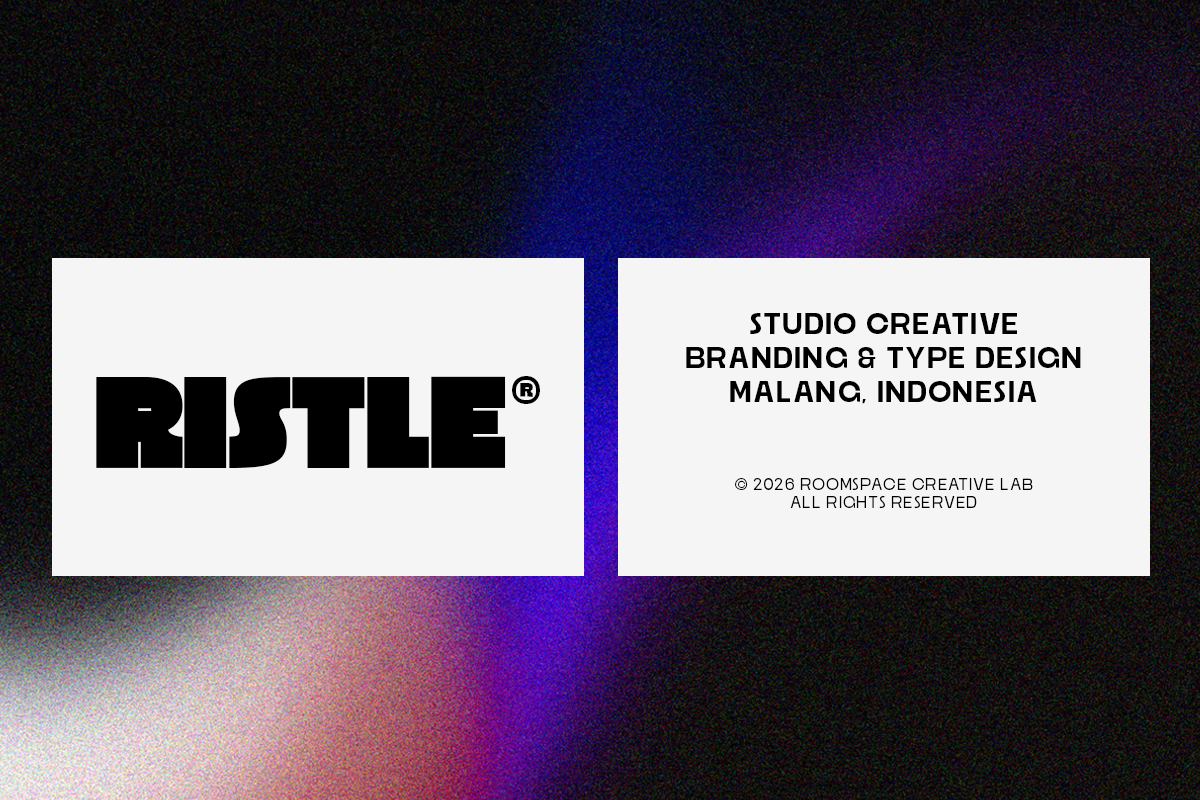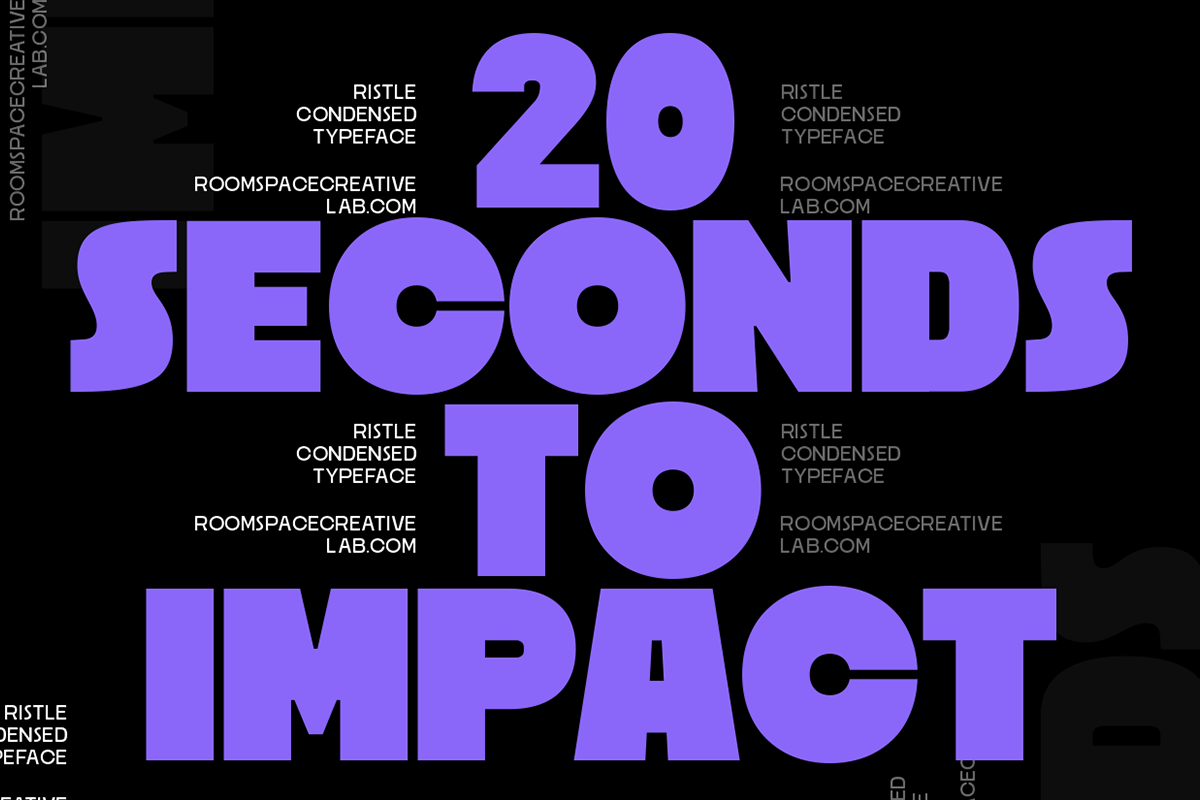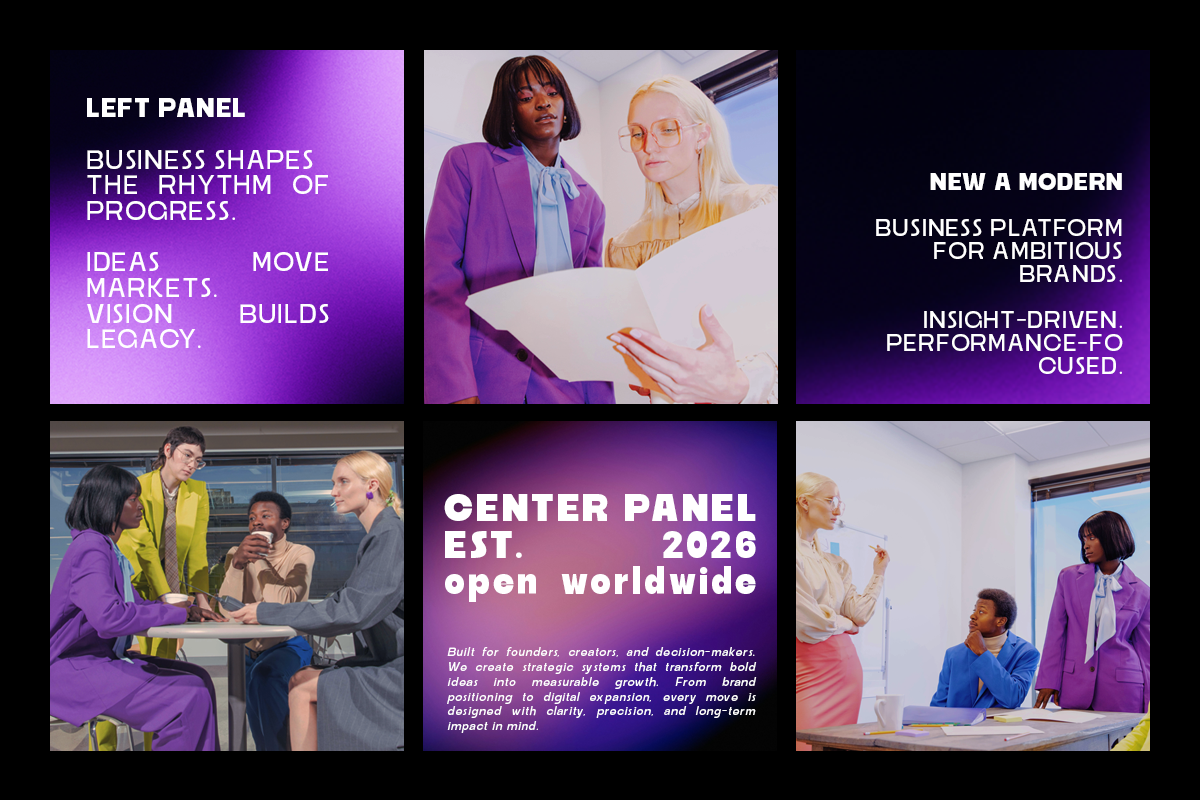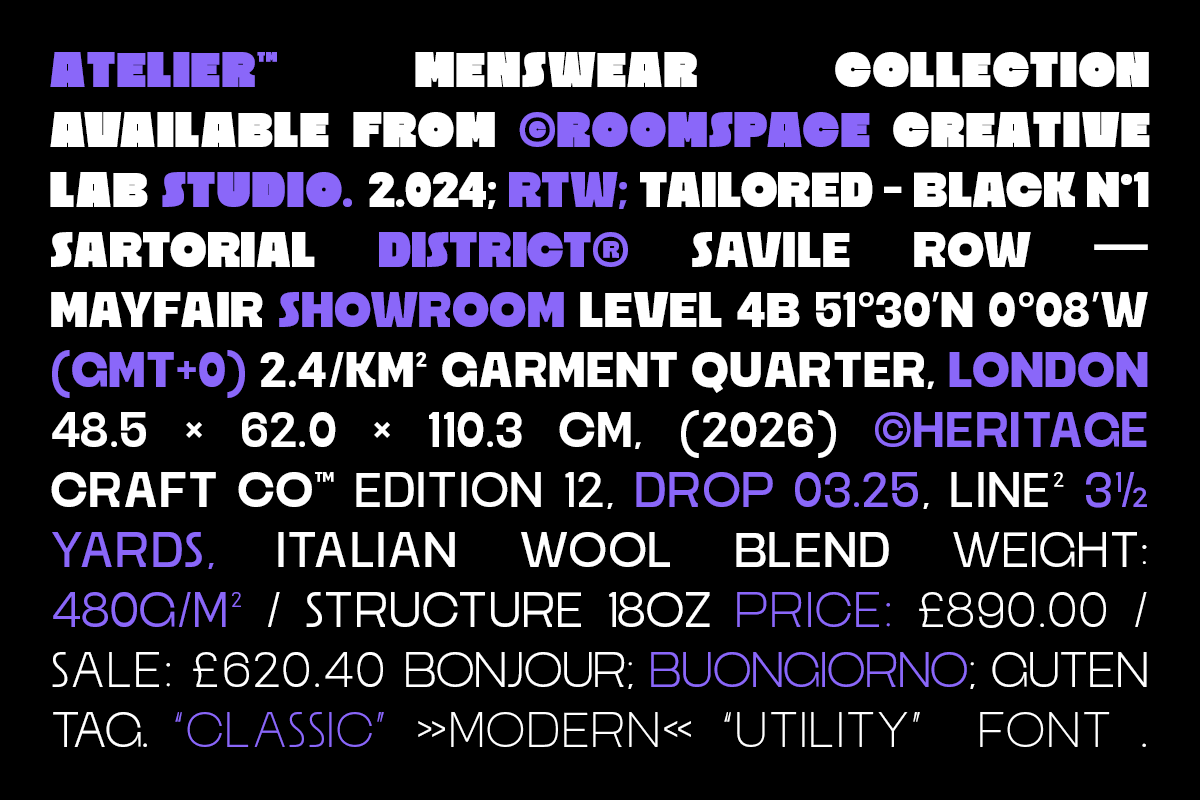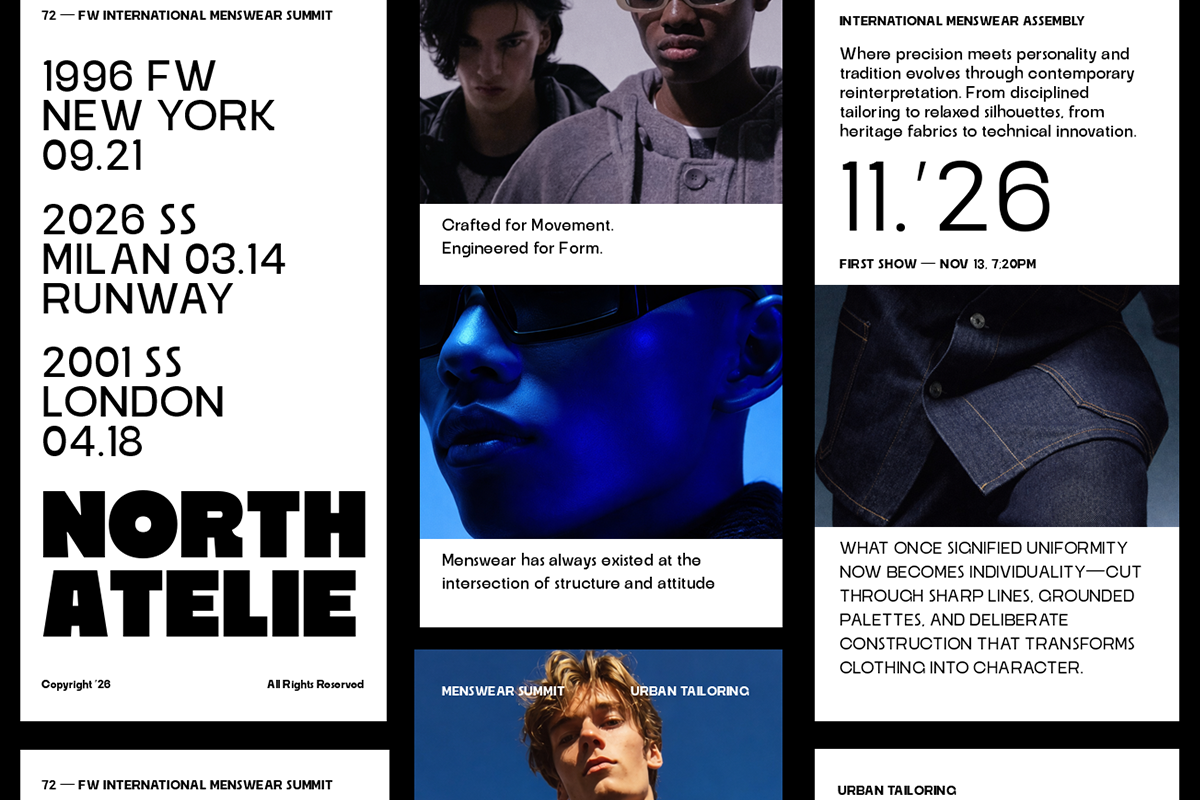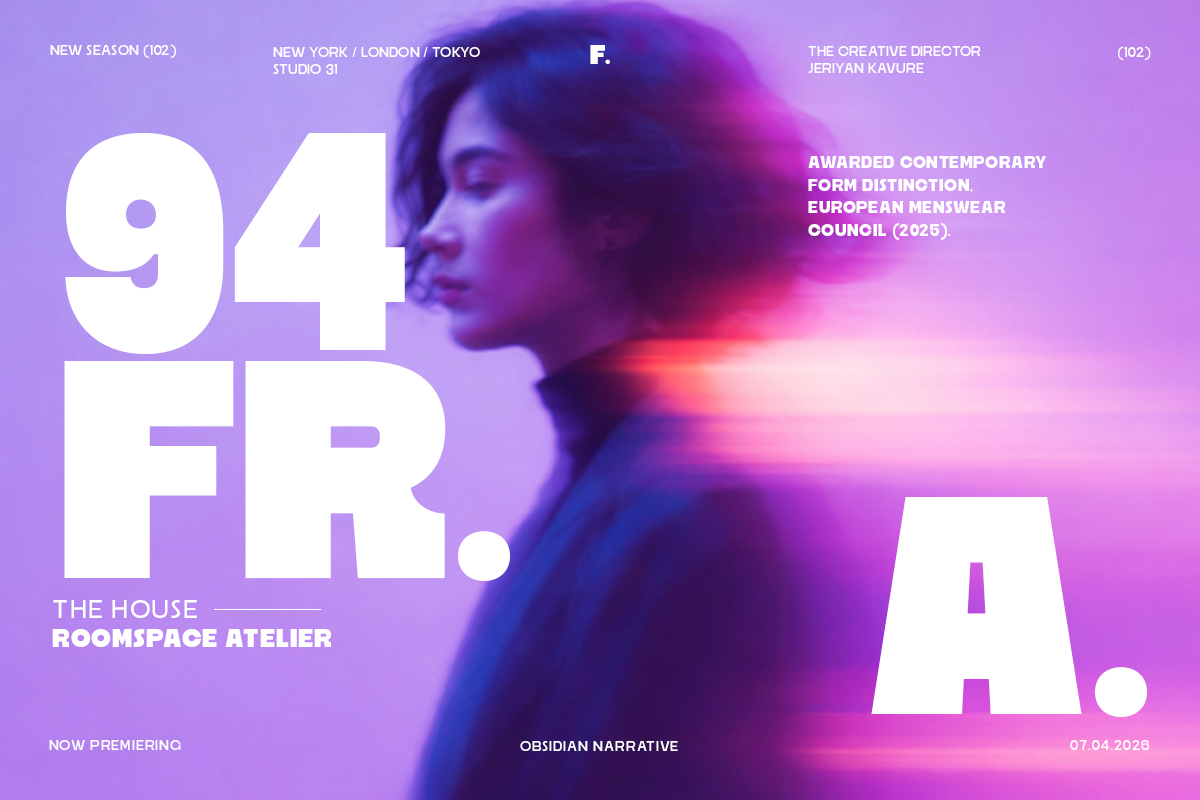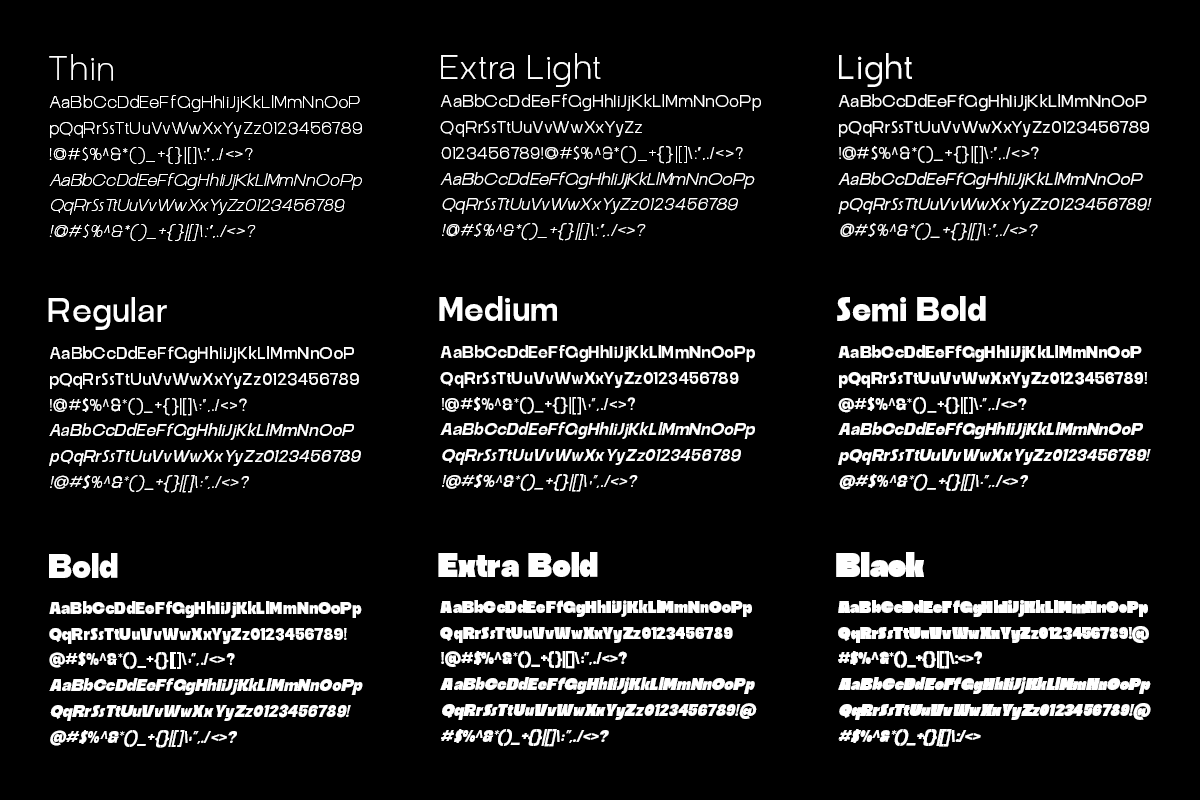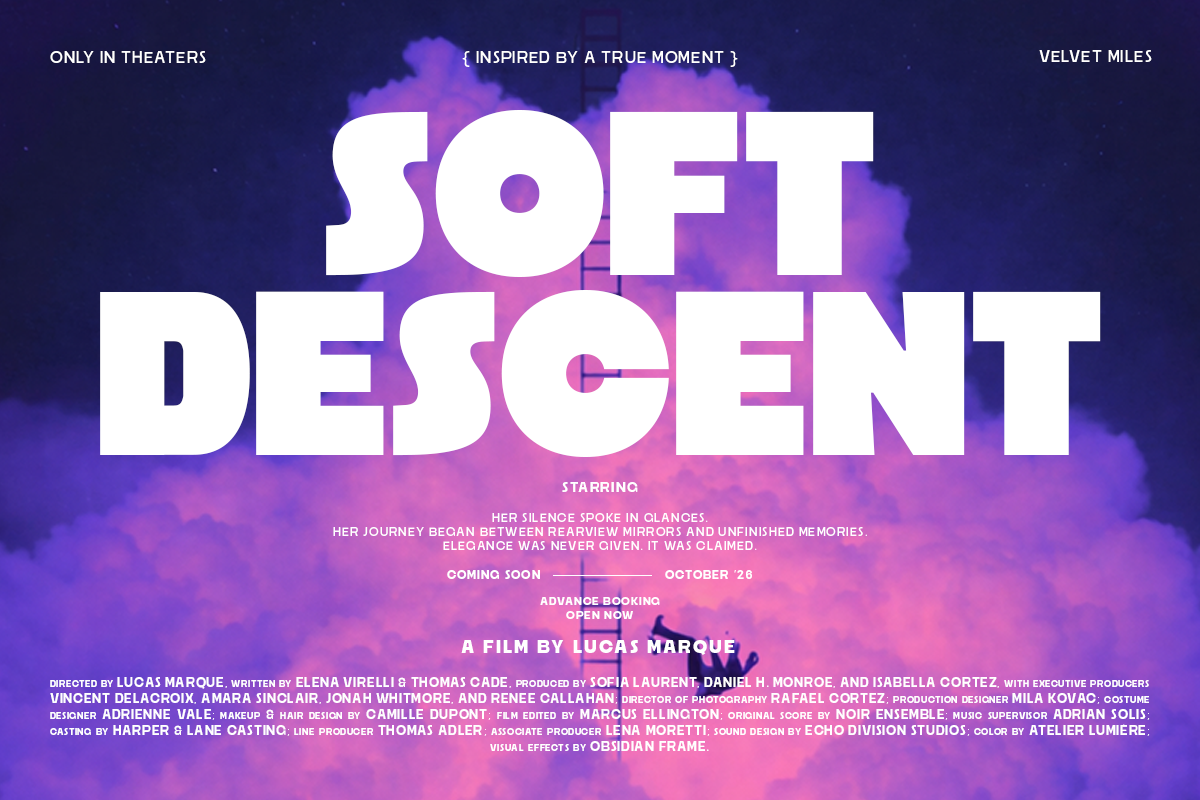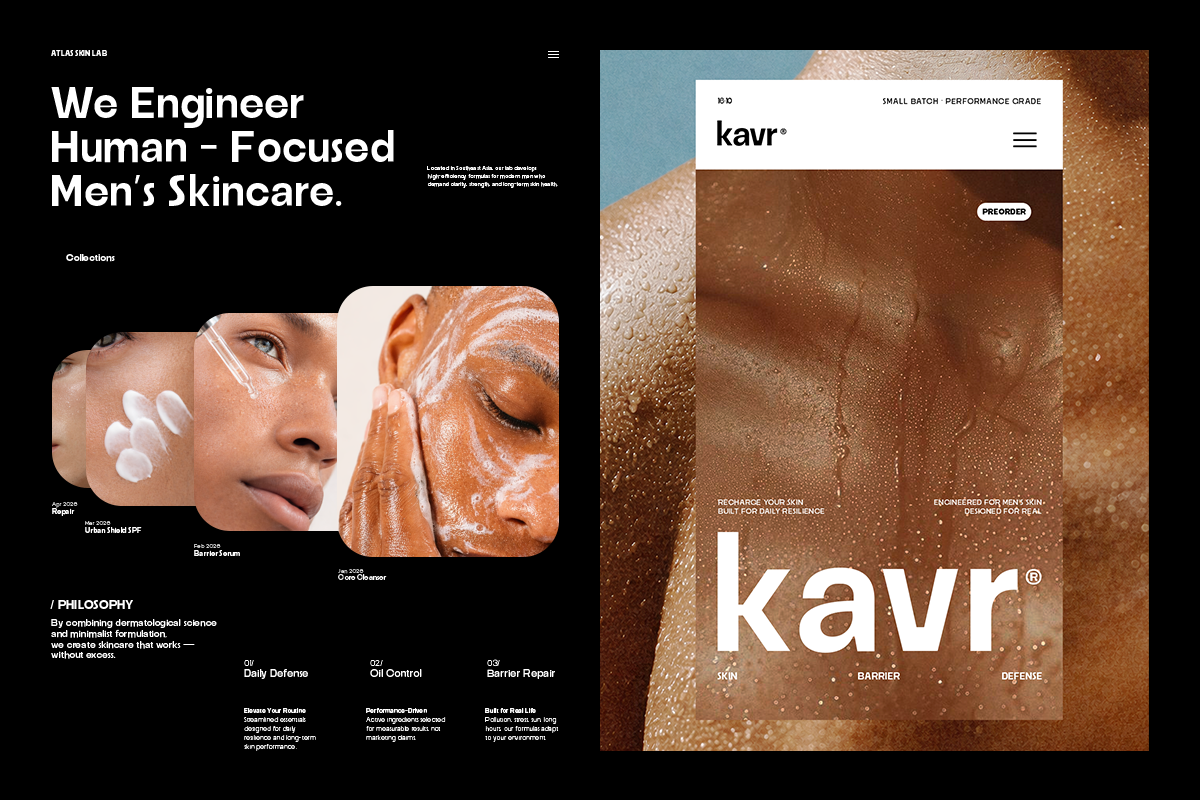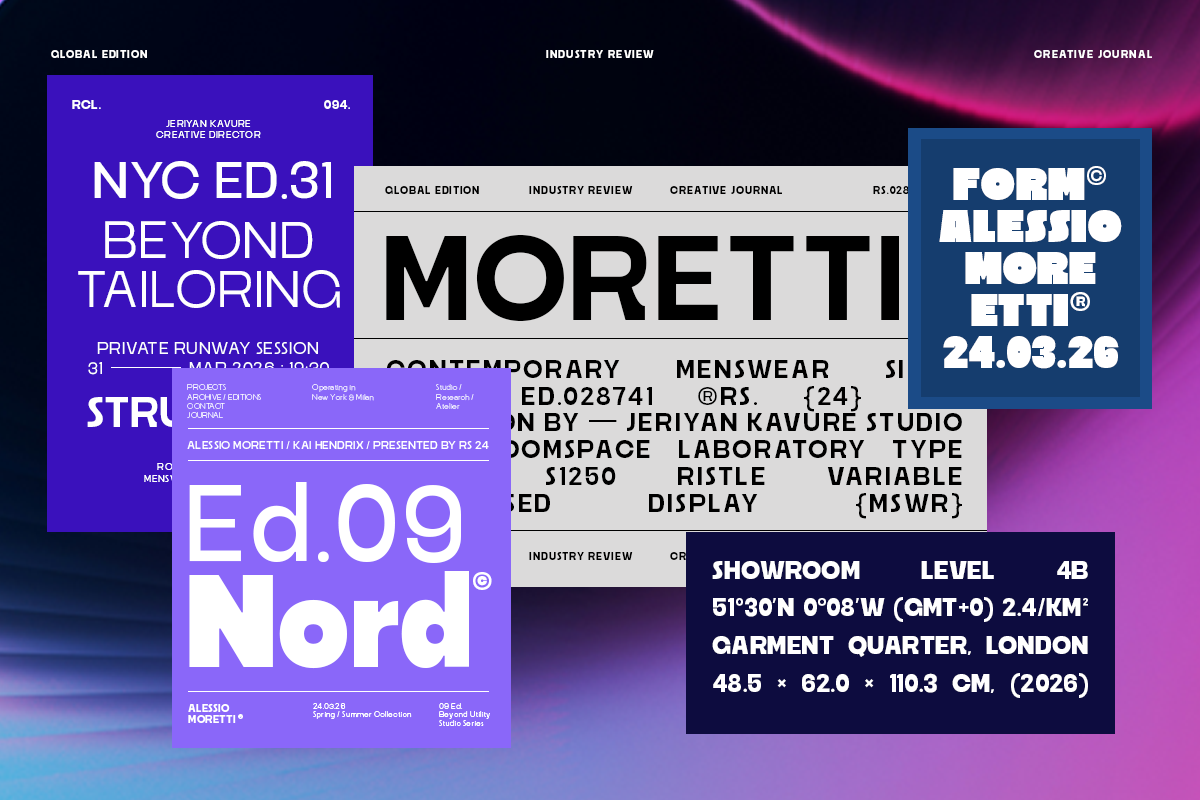
Ristle – Bold Modern Display Sans
Ristle is a powerful geometric display sans crafted to command attention. With solid shapes, wide proportions, and confident structure, Ristle communicates strength, innovation, and modern brand authority. Ristle is a bold display sans-serif font designed to bring confidence and modern strength into branding projects. With wide proportions, geometric balance, and clean structure, Ristle creates an unmistakable visual presence that stands out across both print and digital design. From tech branding and startup identities to posters, packaging, and editorial layouts, Ristle provides a contemporary voice built for brands that want to look strong, modern, and future-ready.
- Bold geometric display style